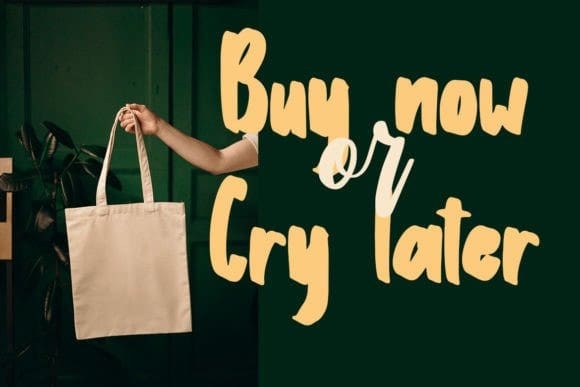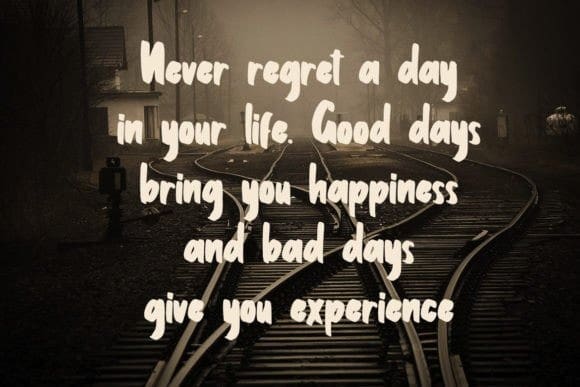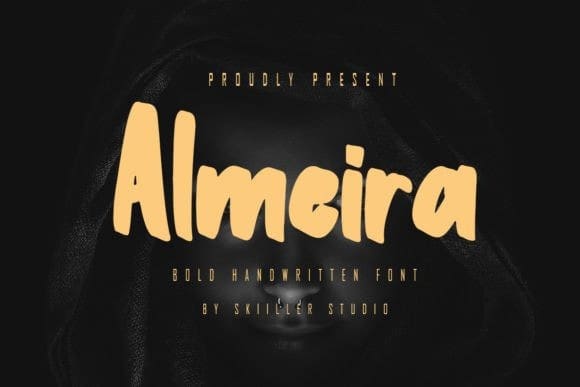
Almeira Font
Almeira Font is a cool and unique handwritten display font. It looks beautiful on a variety of designs requiring a personalized style, such as wedding invitations, thank you cards, weddings, greeting cards, logos, and so on.